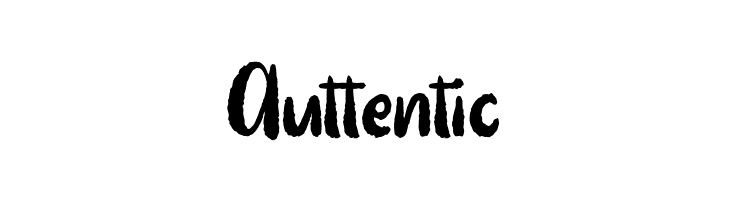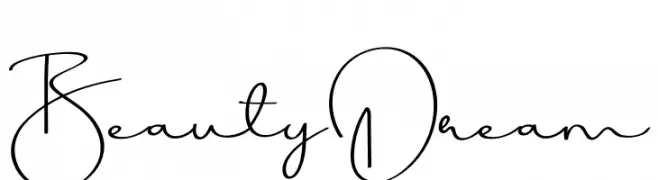
A bold, hand-drawn font with dynamic and expressive characters.
A hand-drawn, distressed font with a vintage, rustic appearance.
A bold, elegant script font with flowing curves and high contrast.
A playful, handwritten font with smooth curves and a casual style.
A modern, geometric font with a futuristic and sleek design.
A dynamic and expressive handwritten script font with smooth, flowing strokes.
An elegant and flowing script font with graceful curves and cursive strokes.
A playful, handwritten font with dynamic strokes and a creative flair.
An elegant script font with flowing, cursive strokes and a sophisticated style.
A bold, circular font with a playful and modern design.